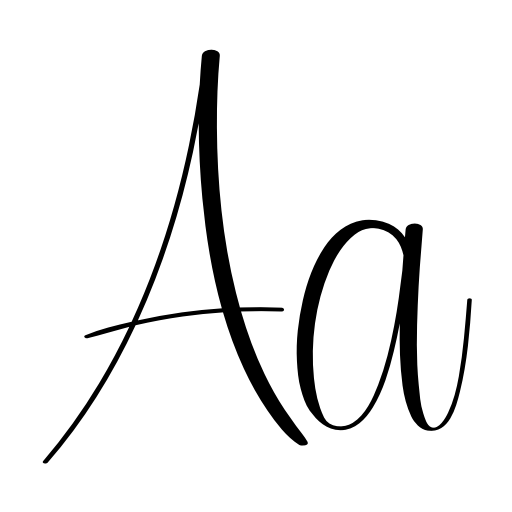
Calestial is an elegant, slender script font with a delicate, hand-drawn feel characterized by tall, narrow letterforms and graceful swashes. Its light stroke weight and refined curves give it a sophisticated, whimsical personality, making it ideal for branding, invitations, and creative projects that seek a stylish yet approachable aesthetic. This font works best in display uses where its airy, artistic nature can truly shine.
Calestial Font